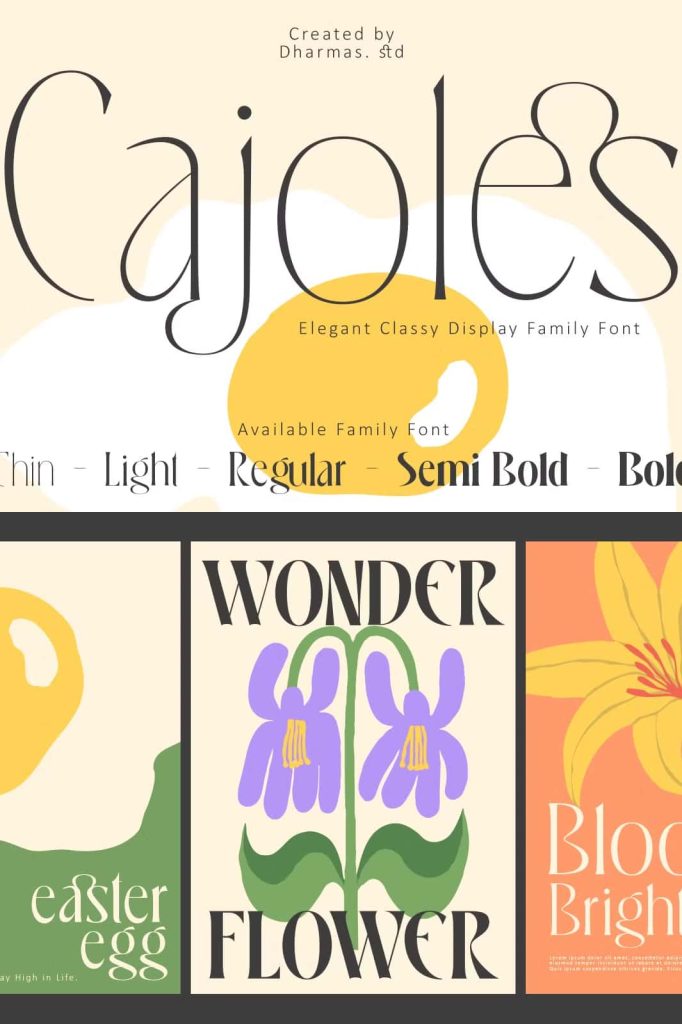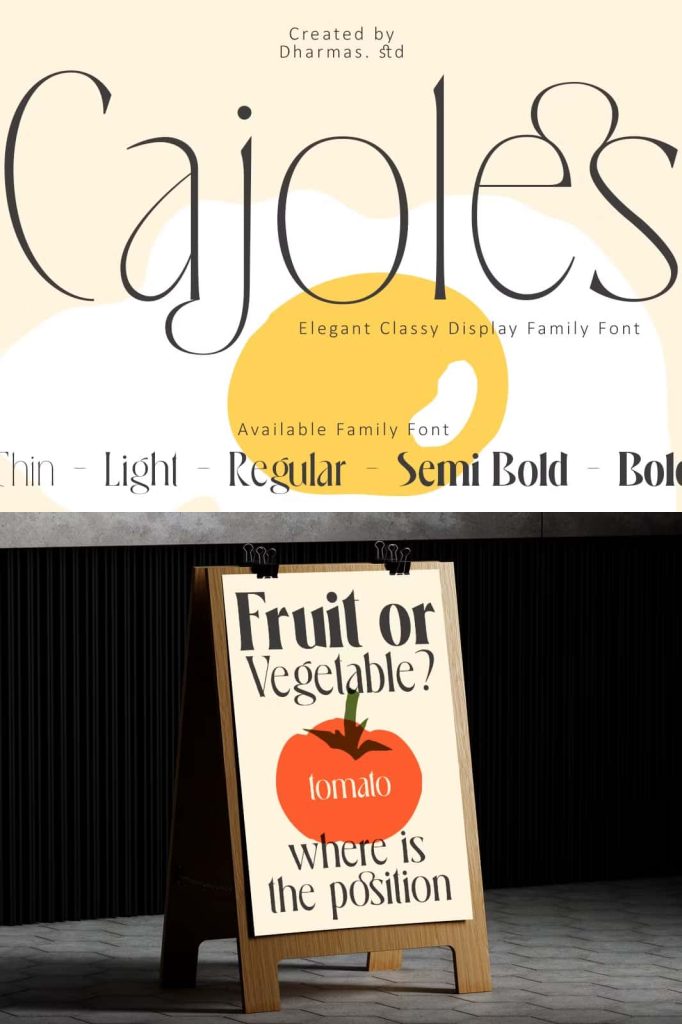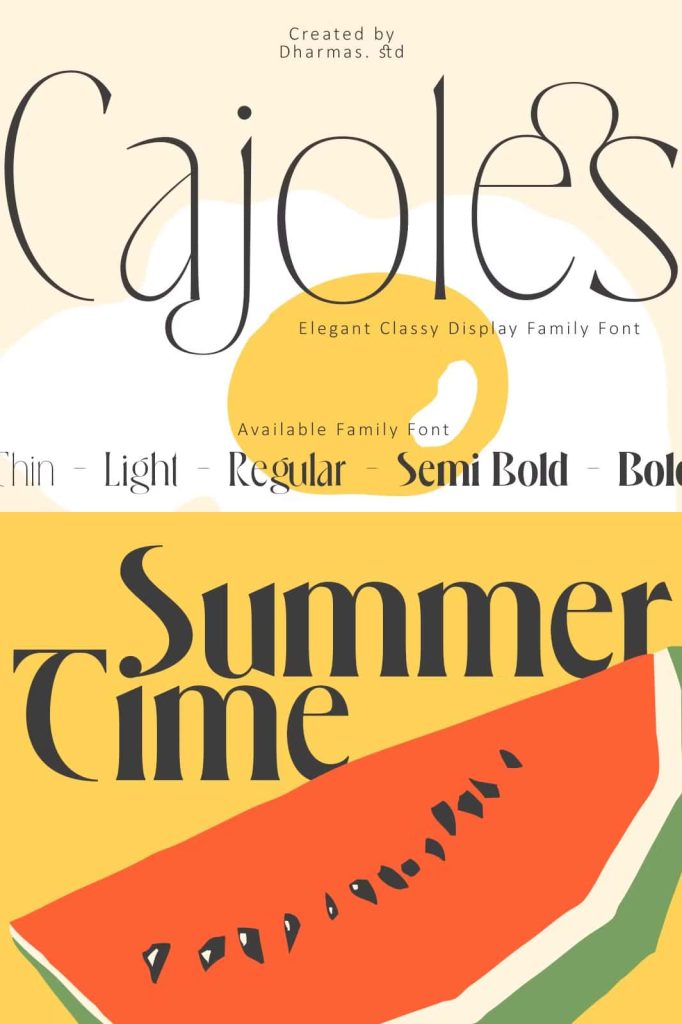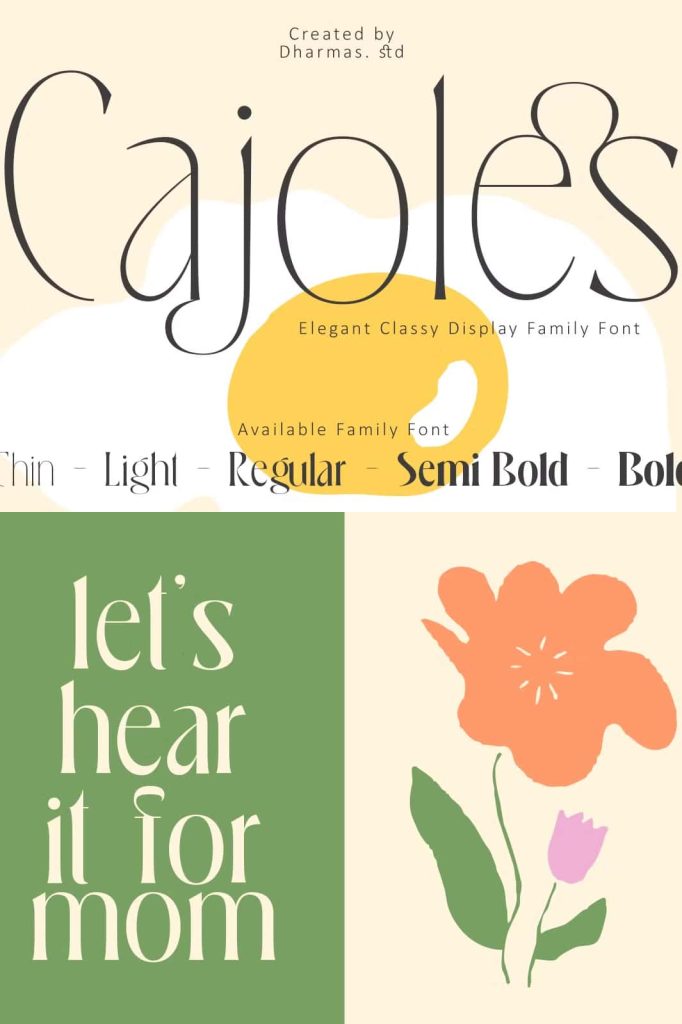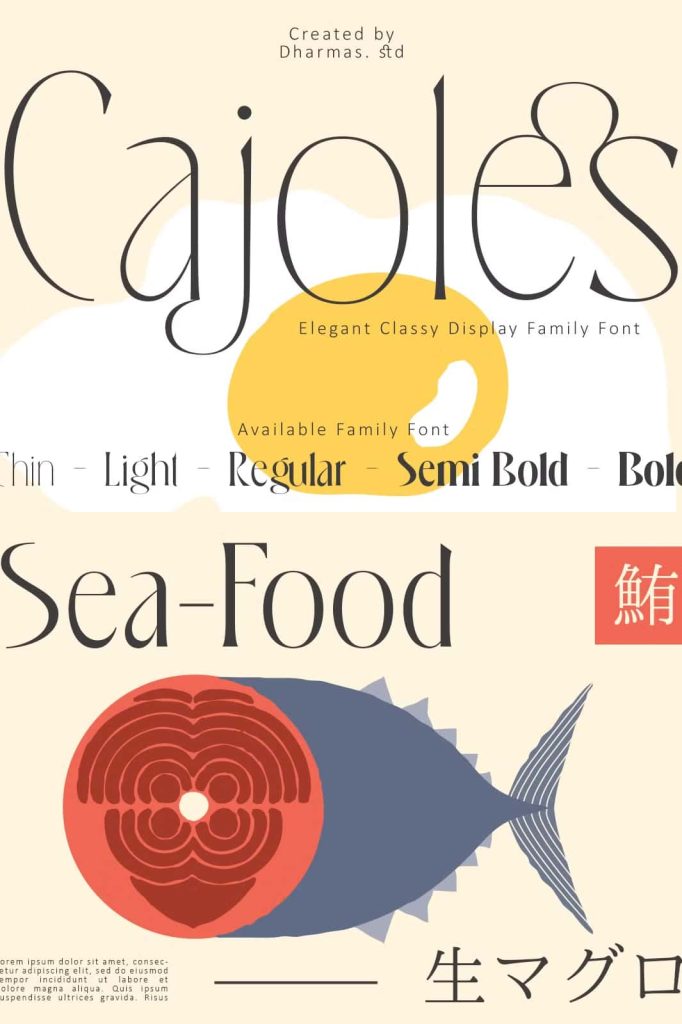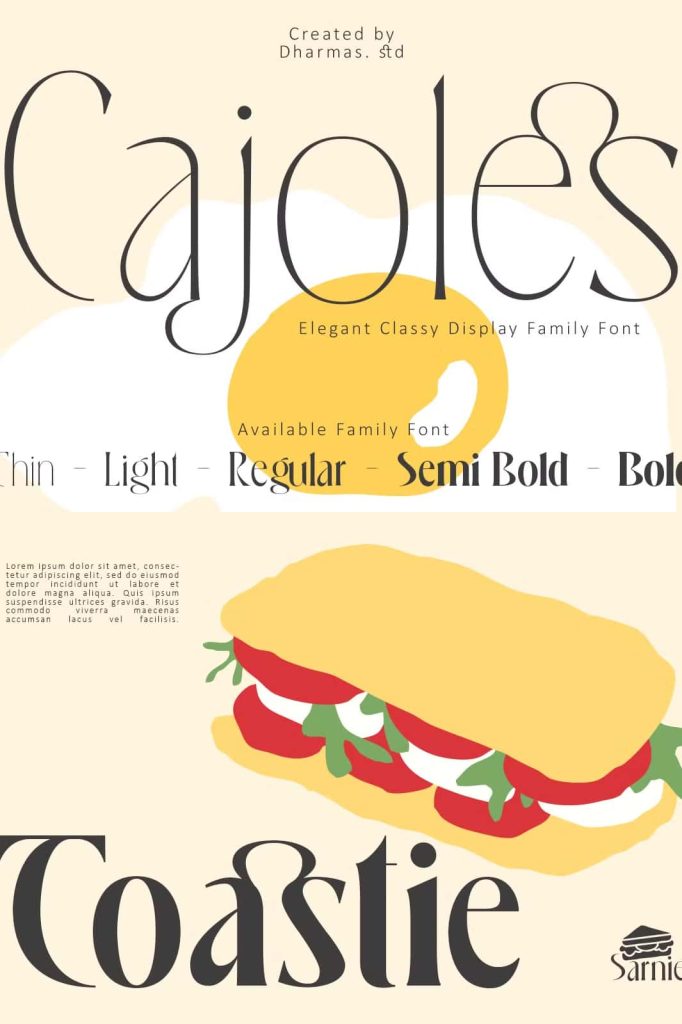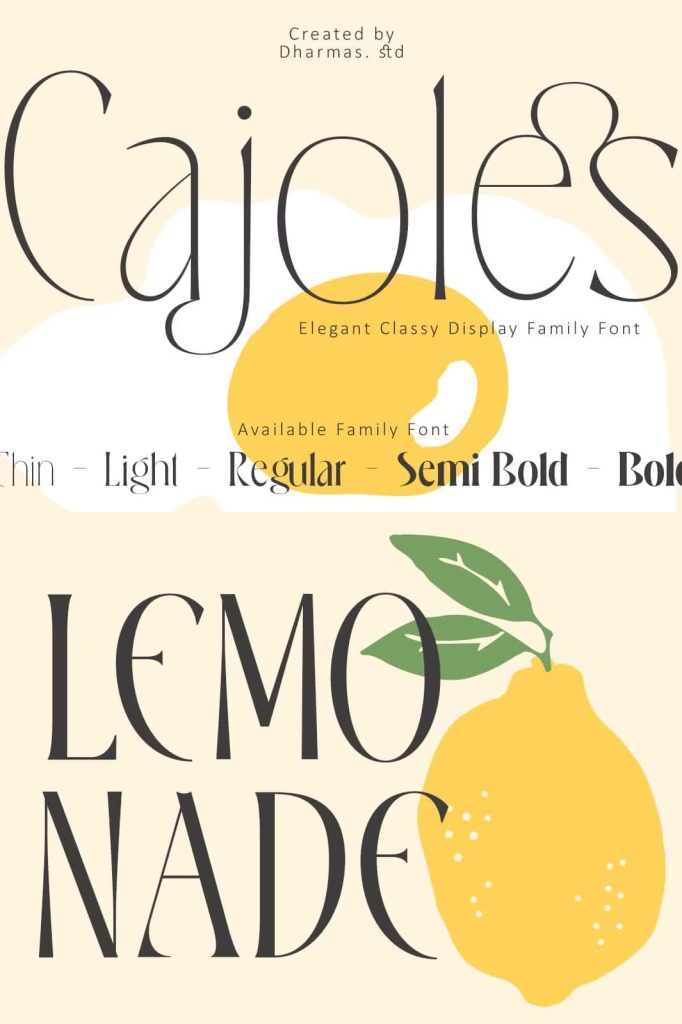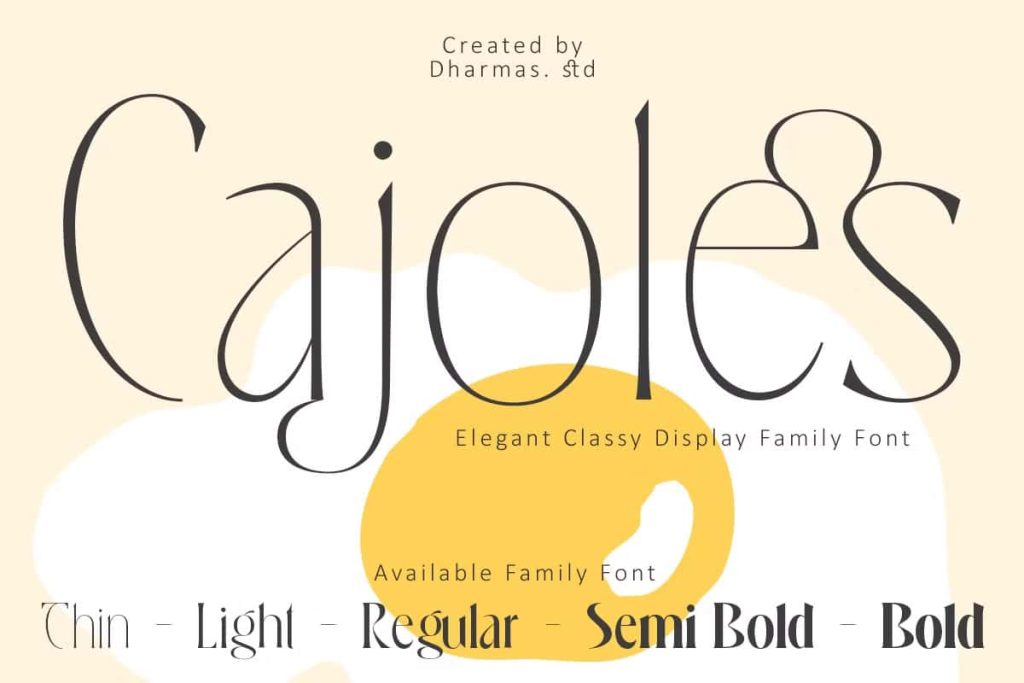
Cajoles – 5 Display FontleastedJuly 22, 2025Fonts Introducing Cajoles – a brand-new modern typeface family inspired by the elegance of Art Nouveau! Download